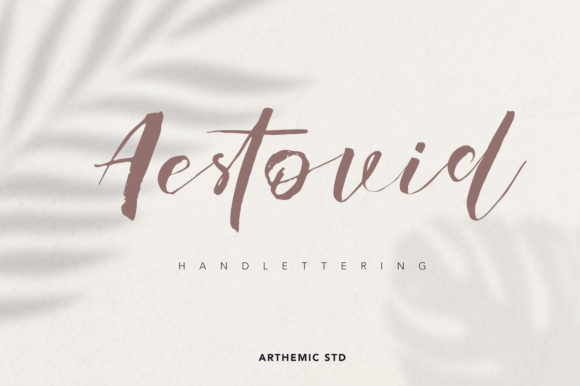
Aestovid is both classy and contemporary, making it the perfect font for adding a touch of elegance to any design idea! In this article, I’ll share my experience with Aestovid, its features, and how to make the most of it in various design platforms.
An Honest Review of Aestovid Font
What I Love About Aestovid ✨
- ✅ Elegant and refined: Aestovid’s sleek lines and curves make it perfect for high-end designs, logos, and branding materials.
- ✅ Versatile: This font works beautifully in both digital and print formats, making it a great addition to any design library.
- ✅ Easy to read: Aestovid’s clear and concise lettering ensures that your message is conveyed with clarity and precision.
- ⚠️ Limited availability of certain glyphs: While Aestovid has an impressive range of glyphs, some users may find that certain special characters are not available.
- ⚠️ May require adjustments for body text: Aestovid’s elegant design may not be suitable for body text in certain contexts, such as lengthy articles or blog posts.
The Designer Inspiration Behind Aestovid
Aestovid Font was designed with the goal of creating a modern, elegant font that would meet the needs of designers seeking a sophisticated look. The designer’s inspiration came from a combination of traditional typography and modern digital design trends.
| Q: What type of designs is Aestovid best suited for? | A: Aestovid is perfect for high-end designs, logos, branding materials, and any project that requires a touch of elegance and sophistication. |
| Q: Can I use Aestovid for body text? | A: While Aestovid is elegant and refined, it may not be the best choice for lengthy body text. Consider using a clearer font for better readability. |
| Q: Is Aestovid a versatile font? | A: Yes, Aestovid works beautifully in both digital and print formats, making it a great addition to any design library. |
| Q: Does Aestovid support OpenType features? | A: Yes, Aestovid supports OpenType features like ligatures, stylistic alternates, and glyphs, allowing you to add visual interest to your text. |